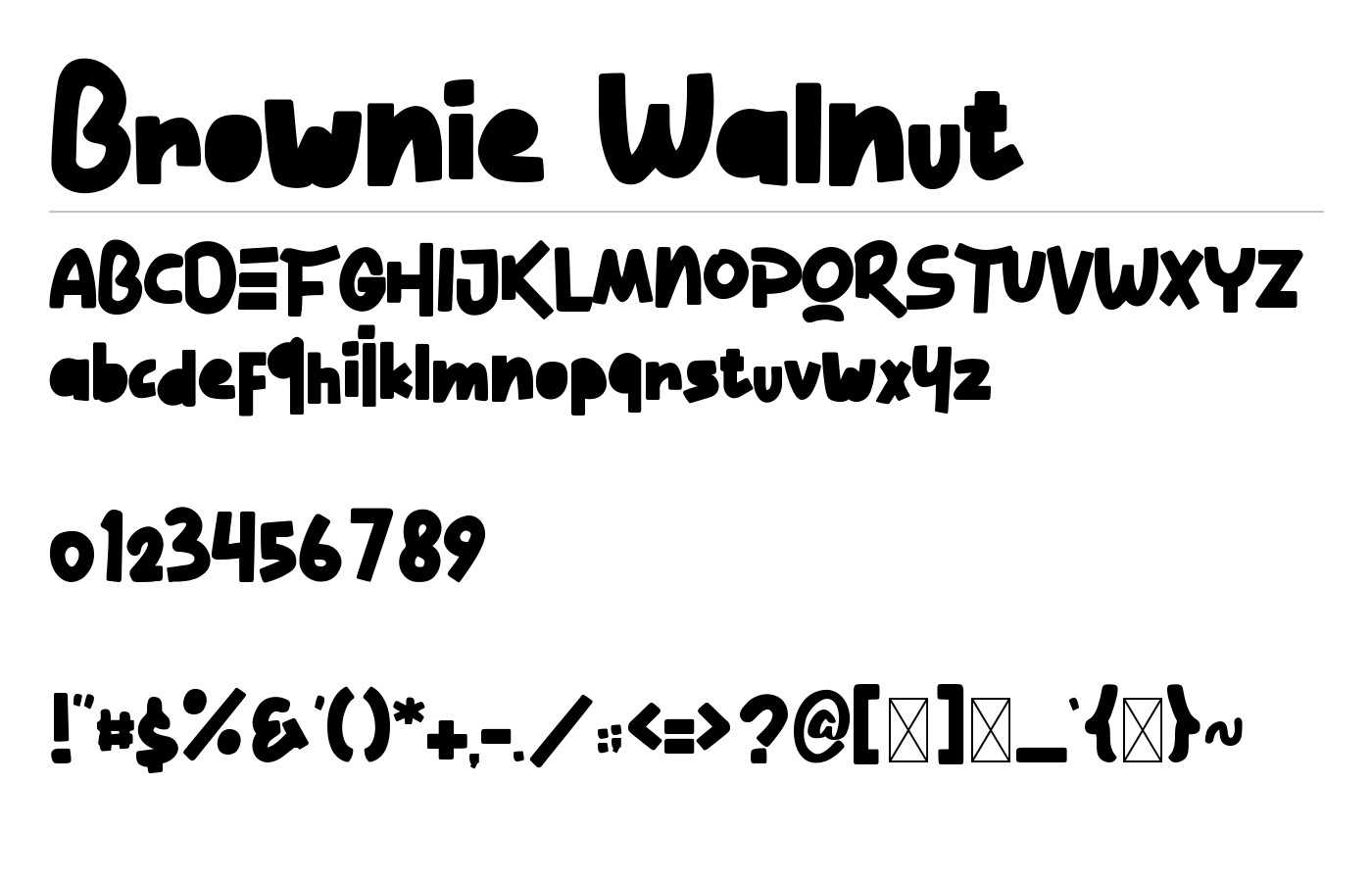
Brownie Walnut is a bold, playful sans serif font with a chunky, hand-drawn feel that adds a fun and friendly vibe to any design. Its irregular shapes and thick strokes give it a casual, approachable personality, making it perfect for creative projects, children’s materials, and brand identities that want to convey warmth and uniqueness. This font works best in headlines, logos, and packaging where a distinctive, energetic look is needed.
Brownie Walnut Font
About Brownie Walnut Font
| Font family | Brownie Walnut Font |
| Designer | Dian Mariesta |